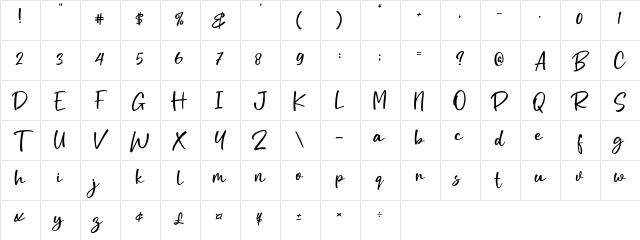
Handfine Regular Free Font
Handfine Regular
Foundry: Khurasan
Designer: Khurasan
Design Context for Handfine
Handfine flows with the natural rhythm of handwritten lettering, making it ideal for designs that call for warmth and personal expression.
Font Pairing: Combine Handfine with a simple geometric sans for maximum contrast - the tension between flowing curves and clean structure is a classic typographic pairing.
Pro Tip: Use Handfine for short runs of text - names, titles, or taglines. Extended body copy in script faces tires the eye quickly.